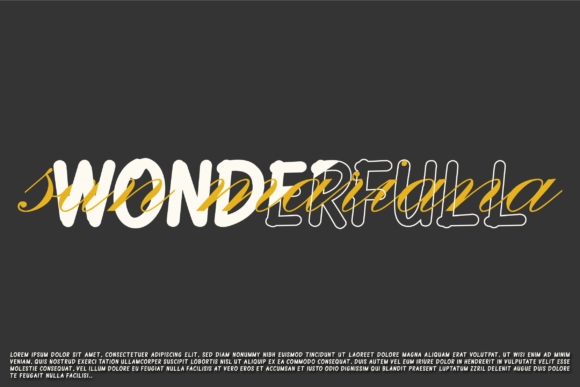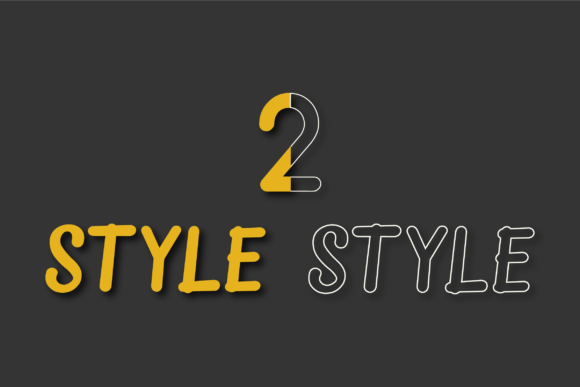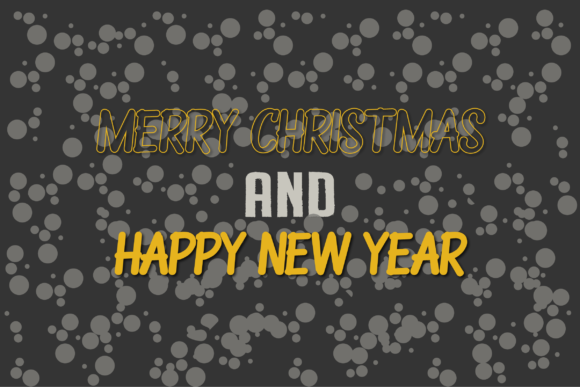
Gingler Bale Font
About Gingler Bale Font
Gingler Bale is a magical and friendly script that radiates playfulness. It comes in two distinct versions, Outline and Regular!